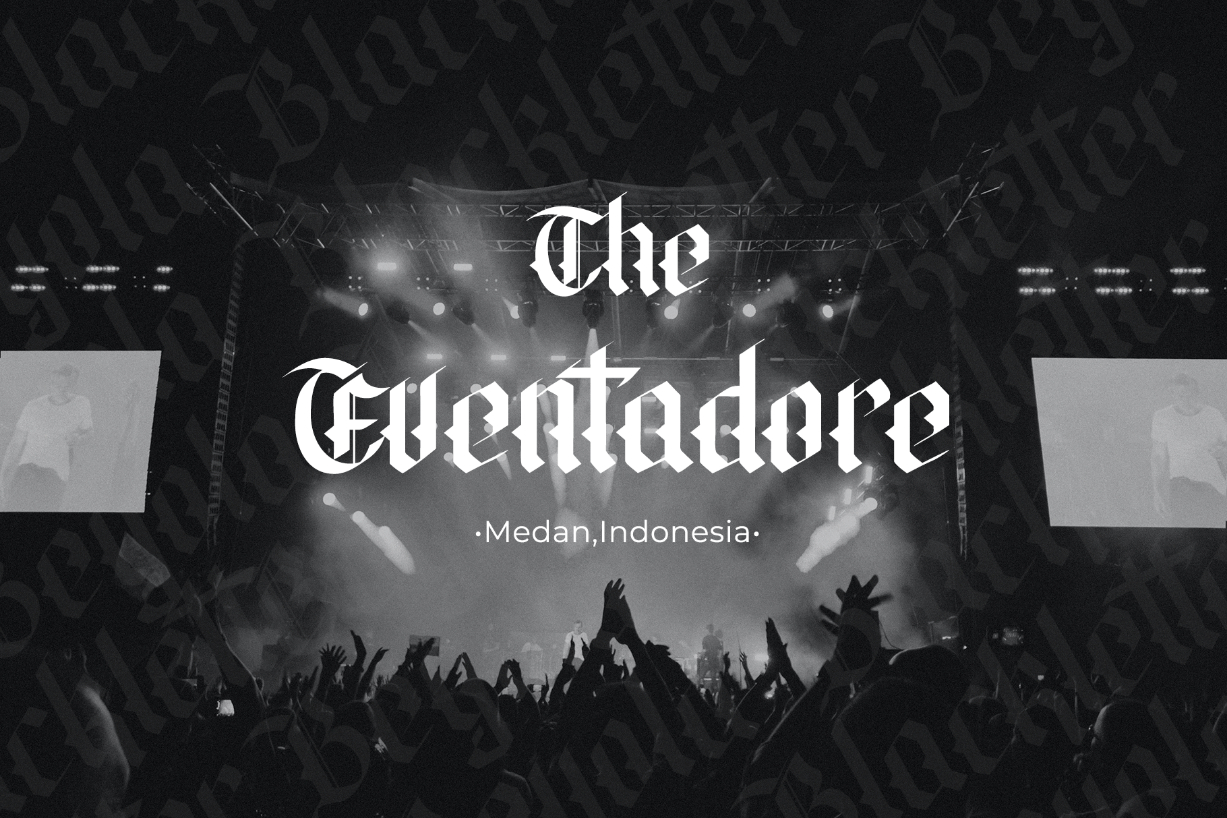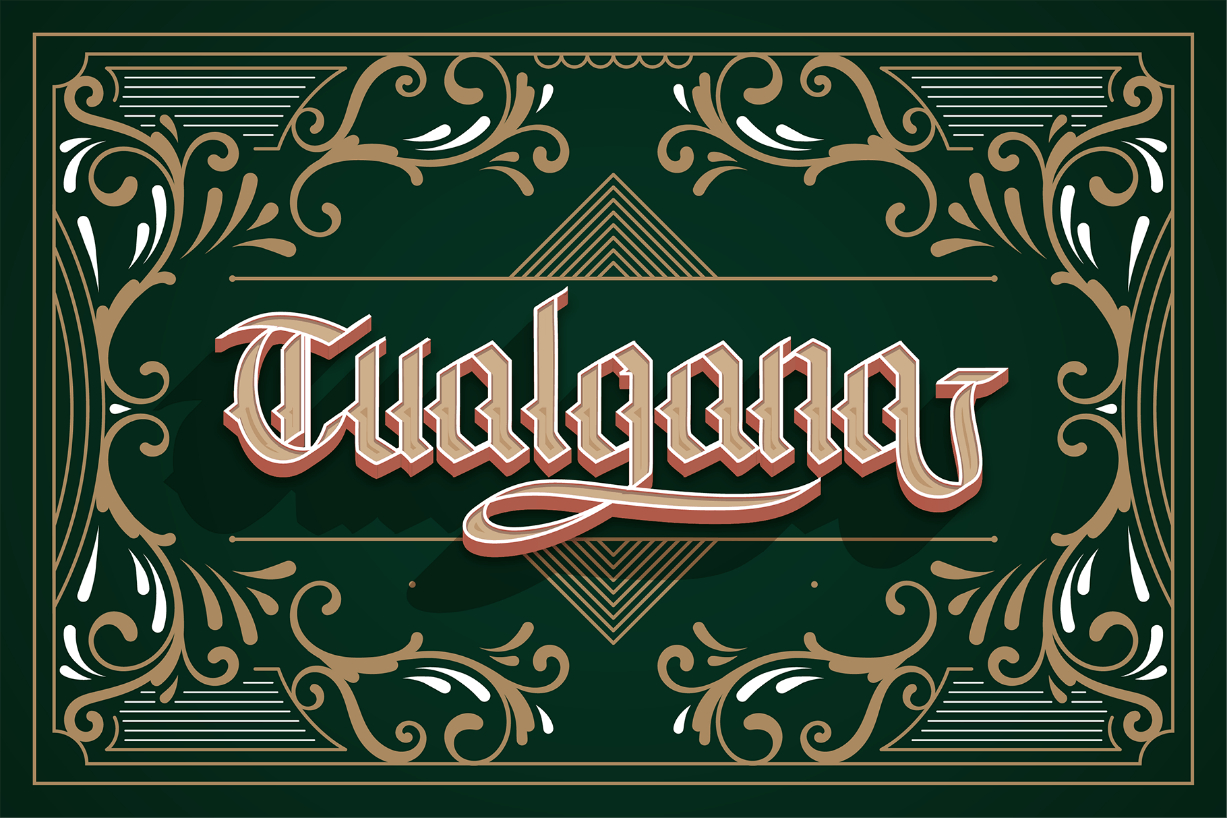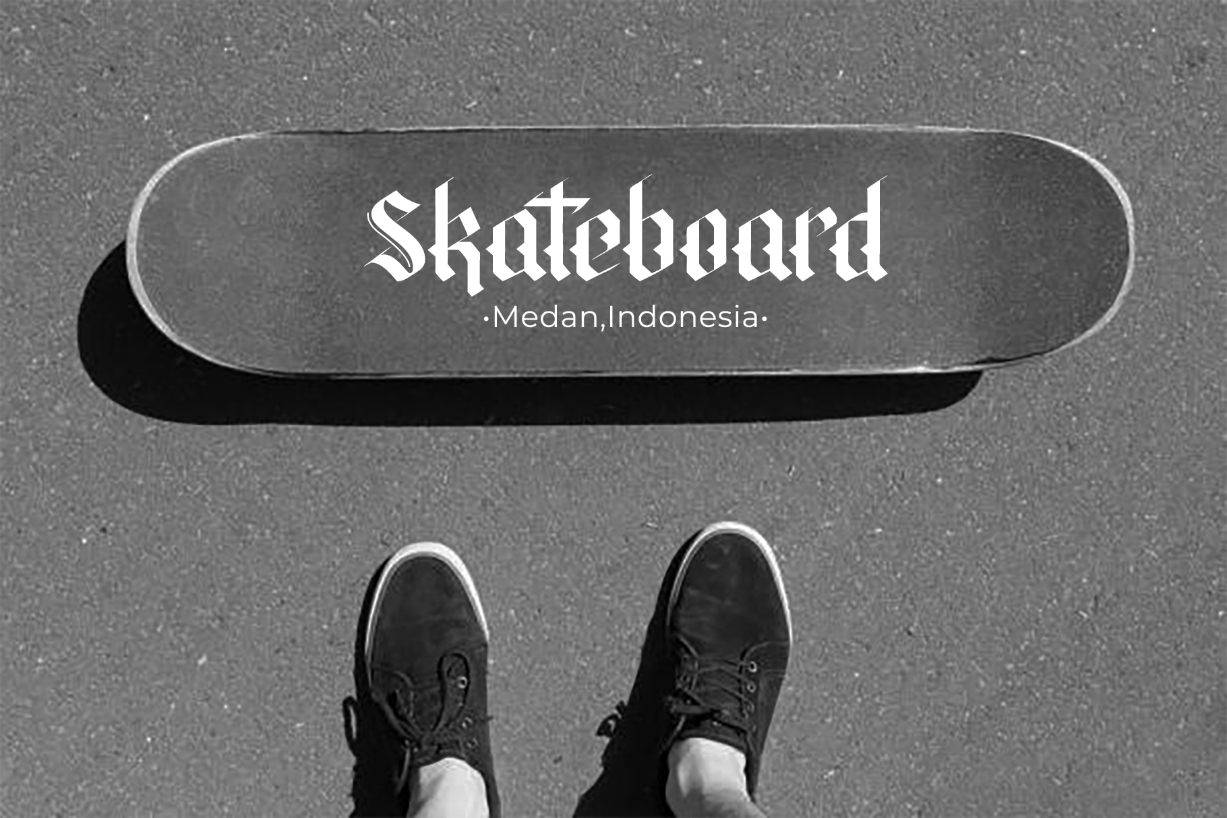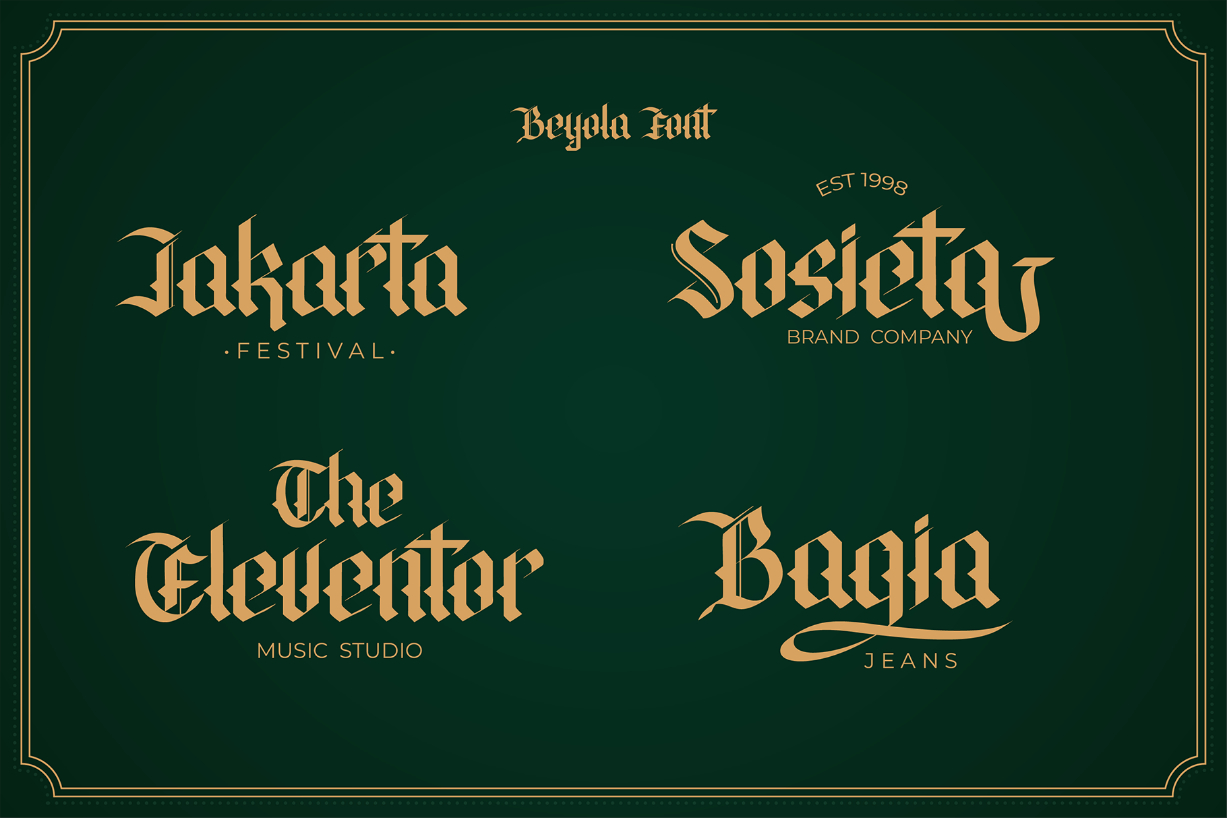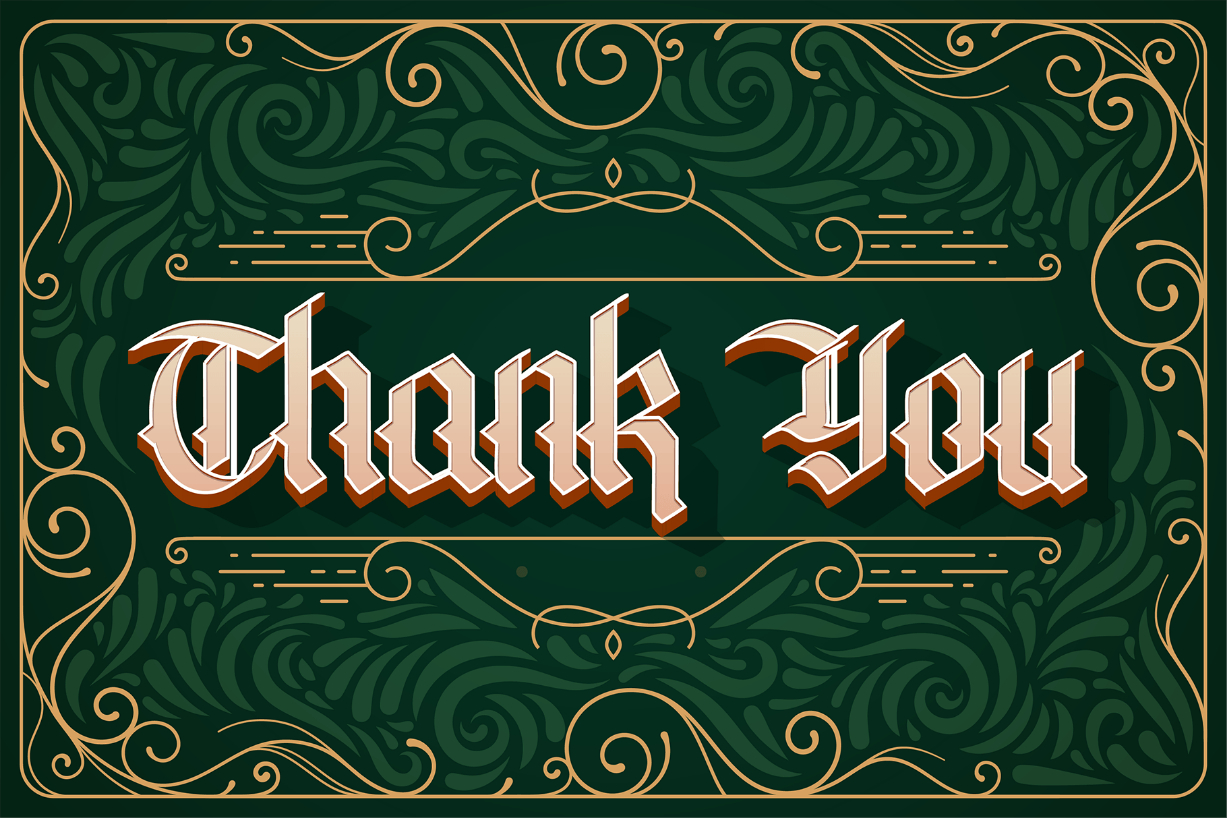
Beyola Font
About Beyola Font
Beyola is a stunning blackletter font with a vintage shape that fits all your design needs. Use it to add depth and charm to your creations, and you won’t be disappointed!